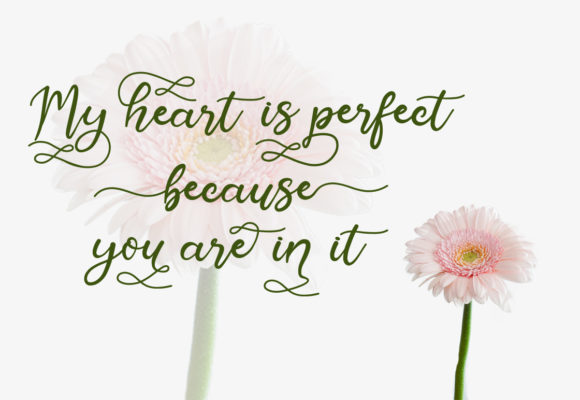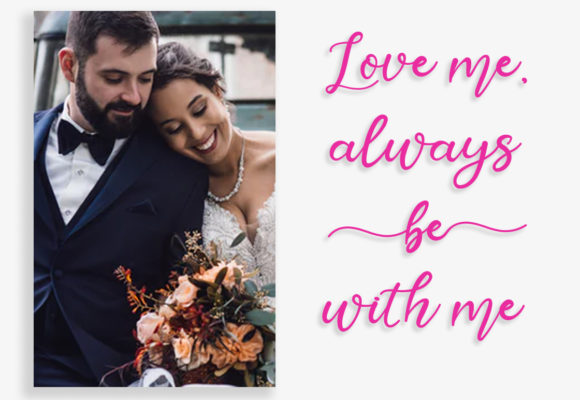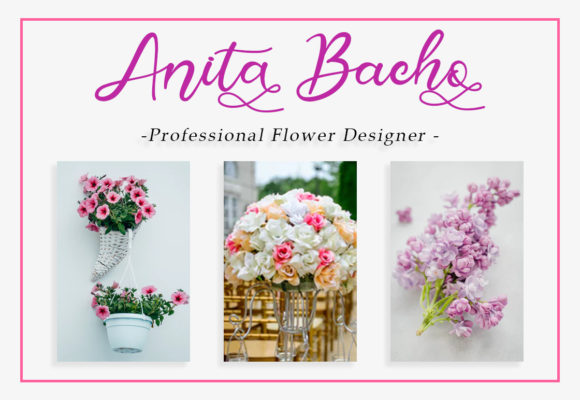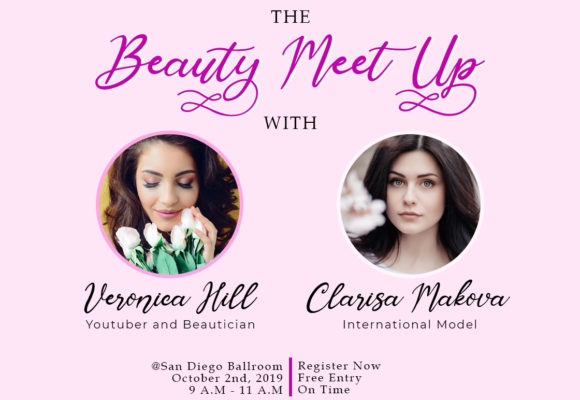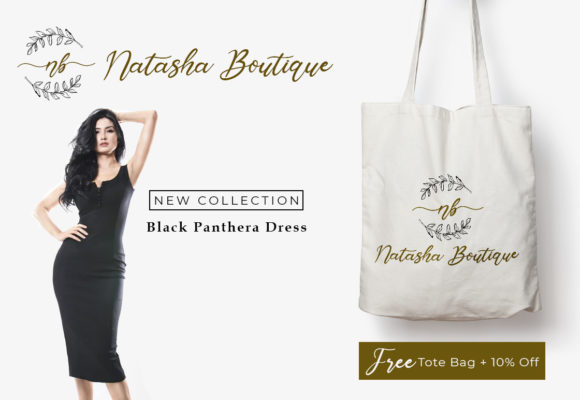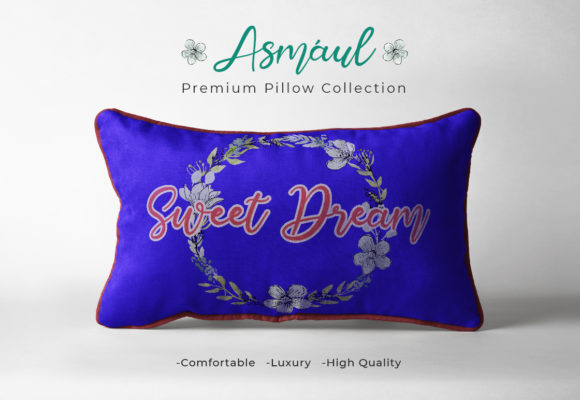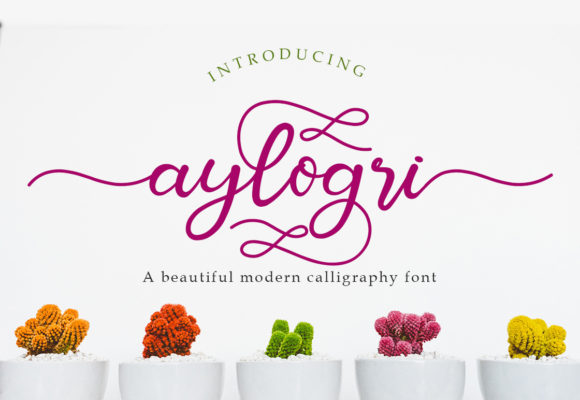
Aylogri Font: The Perfect Script Font for Romantic Designs
Aylogri is a stunning script font that has taken the design world by storm. With its beautiful flowing characters, it’s the perfect choice for designers and crafters who want to add a touch of romance to their work. In this article, we’ll dive into the world of Aylogri font, exploring its features, uses, and benefits.
What is Aylogri Font?
Aylogri is a script font that boasts elegant and flowing characters. Its unique design makes it stand out from other fonts, and its versatility allows it to be used in a variety of projects. Whether you’re creating wedding invitations, romantic quotes, or just want to add a personal touch to your designs, Aylogri is the perfect choice.
Features of Aylogri Font
Aylogri font has several features that make it a popular choice among designers and crafters. Some of its notable features include:
- Beautiful flowing characters: Aylogri’s characters are designed to flow smoothly into each other, creating a beautiful and elegant look.
- Romantic feel: The font has a distinctly romantic feel, making it perfect for projects that require a touch of love and elegance.
- Versatile: Aylogri can be used in a variety of projects, from wedding invitations to digital graphics.
- Easy to read: Despite its elegant design, Aylogri is easy to read, making it perfect for both digital and print projects.
Uses of Aylogri Font
Aylogri font can be used in a variety of projects, including:
- Wedding invitations: Aylogri’s romantic feel makes it perfect for wedding invitations, adding a touch of elegance and sophistication.
- Digital graphics: The font can be used to create stunning digital graphics, such as social media posts, blog headers, and more.
- Stationery: Aylogri can be used to create beautiful stationery, including greeting cards, thank-you cards, and more.
- Branding: The font can be used to create a unique and elegant brand identity for businesses, particularly those in the wedding and romance industries.
Benefits of Using Aylogri Font
Using Aylogri font has several benefits, including:
- Unique and elegant designs: Aylogri allows designers and crafters to create unique and elegant designs that stand out from the crowd.
- Time-saving: The font’s versatility and ease of use make it a time-saving solution for designers and crafters.
- Professional look: Aylogri gives designs a professional and polished look, making it perfect for businesses and individuals who want to make a good impression.
Tips for Using Aylogri Font
Here are some tips for using Aylogri font:
- Use it sparingly: Aylogri is a elegant font, but it can be overwhelming if used too much. Use it sparingly to add a touch of romance to your designs.
- Pair it with other fonts: Aylogri can be paired with other fonts to create a unique and interesting look.
- Experiment with colors: The font looks great in a variety of colors, so don’t be afraid to experiment and find the perfect color for your design.
Aylogri font is a beautiful script font that is perfect for designers and crafters who want to add a touch of romance to their work. With its elegant and flowing characters, versatility, and ease of use, it’s a great choice for a variety of projects. Whether you’re creating wedding invitations, digital graphics, or just want to add a personal touch to your designs, Aylogri is the perfect choice.